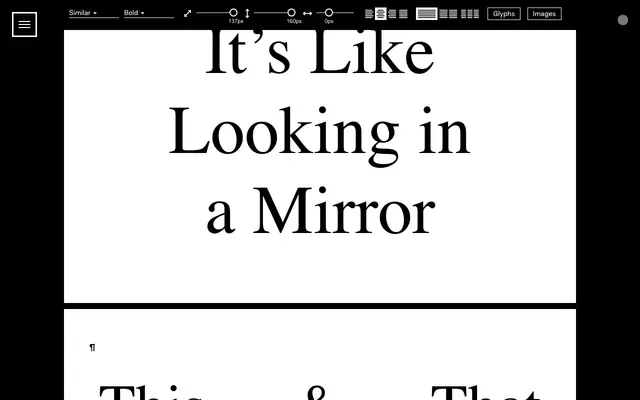
A display typeface from Or Type built around the concept of similarity, doubling and doppelgängers, with a specimen that leans heavily into its own thematic territory.
Or Type's Similar takes its conceptual cue from twins, synonyms and doppelgängers, with a specimen that moves through mythology, poetry and pop culture to frame the design's character. The page draws on Heine's Der Doppelgänger and Babylonian astronomy to set a tone that is literary and slightly uncanny. Weight and language details are not disclosed on the specimen page, suggesting a focused, single-style release aimed at display use.
The specimen page and naming conventions suggest a display-oriented typeface with a playful, conceptual character; the doppelgänger and twin themes point to a design exploring mirroring or duplication as a formal device.